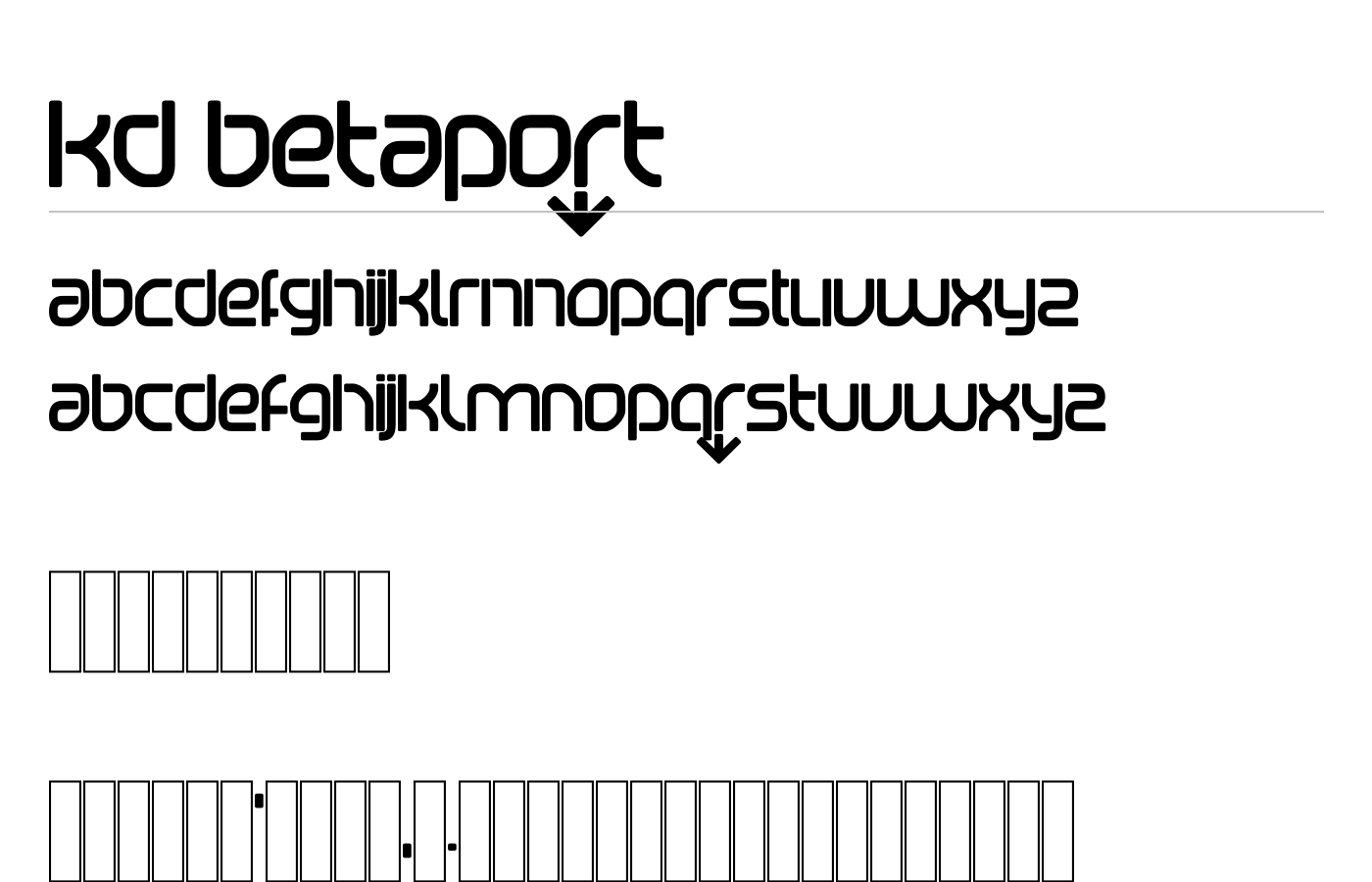
KD Betaport is a modern, geometric sans serif font featuring a clean, rounded style with uniform stroke weight and a slightly condensed width. Its distinctive letterforms, like the single-story 'a' and 'g', along with subtle, tech-inspired details, give it a futuristic yet approachable feel. This font works great for digital branding, tech logos, and contemporary headlines where a sleek, modern impression is desired.
KD Betaport Font
About KD Betaport Font
| Font family | KD Betaport Font |
| Designer | Zhalgas Kassymkulov |